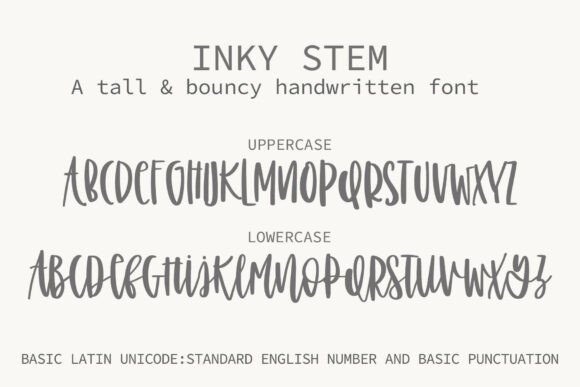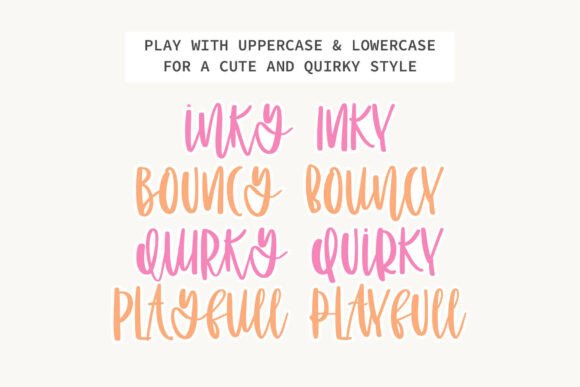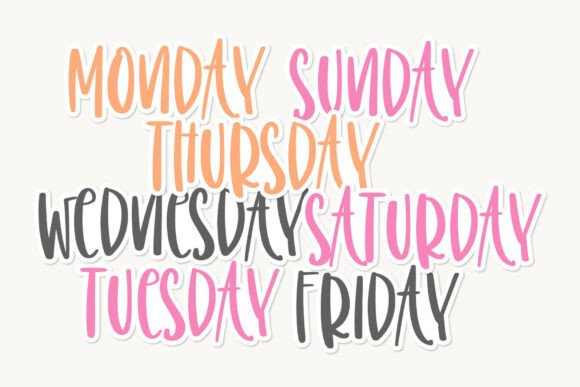
Introduction to Inkystem Font
💛 Inky Stem is a tall and bouncy handwritten font that radiates playful energy and quirky charm through its elongated strokes and lively rhythm.
Its letterforms dance with a natural bounce, giving words a dynamic flow that feels casual yet stylish The mix of smooth curves and expressive angles makes it versatile for both uppercase and lowercase, offering endless possibilities for creative combinations.
Key Features of Inkystem Font
Why Choose Inkystem Font?